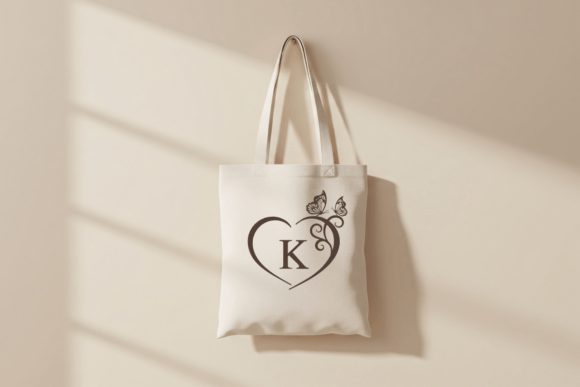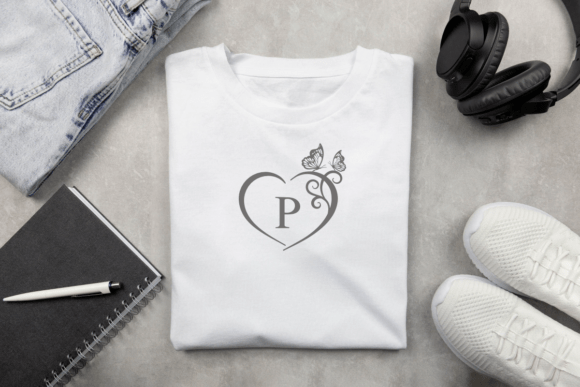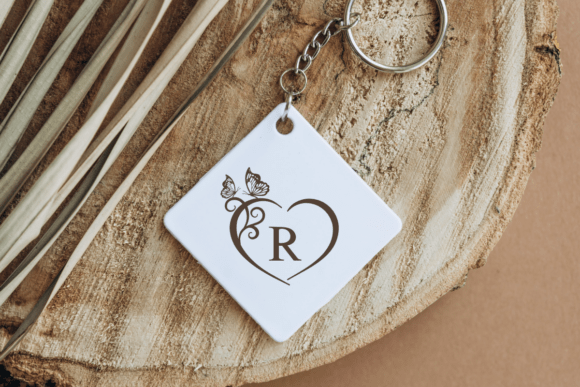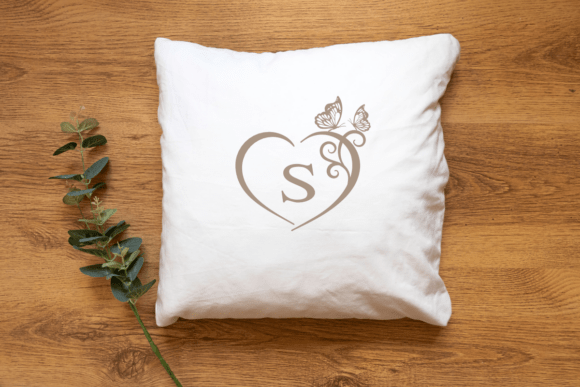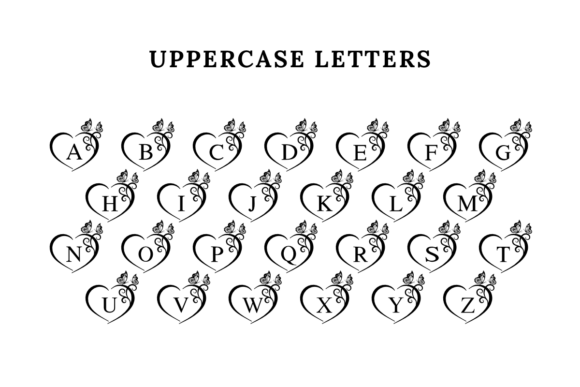
Butterfly Heart Monogram Font
The Butterfly Heart Monogram is a decorative monogram font that beautifully blends elegance and romance. Featuring heart-shaped frames adorned with delicate butterfly accents, each letter is crafted with precision to deliver a timeless and graceful aesthetic.
Perfect for wedding invitations, luxury branding, personalized stationery, and elegant logo designs, this font brings a sophisticated, handcrafted touch to any project. Its refined curves and balanced symmetry make it versatile for both modern and classic themes, ensuring your creative work radiates charm and artistry with every use.